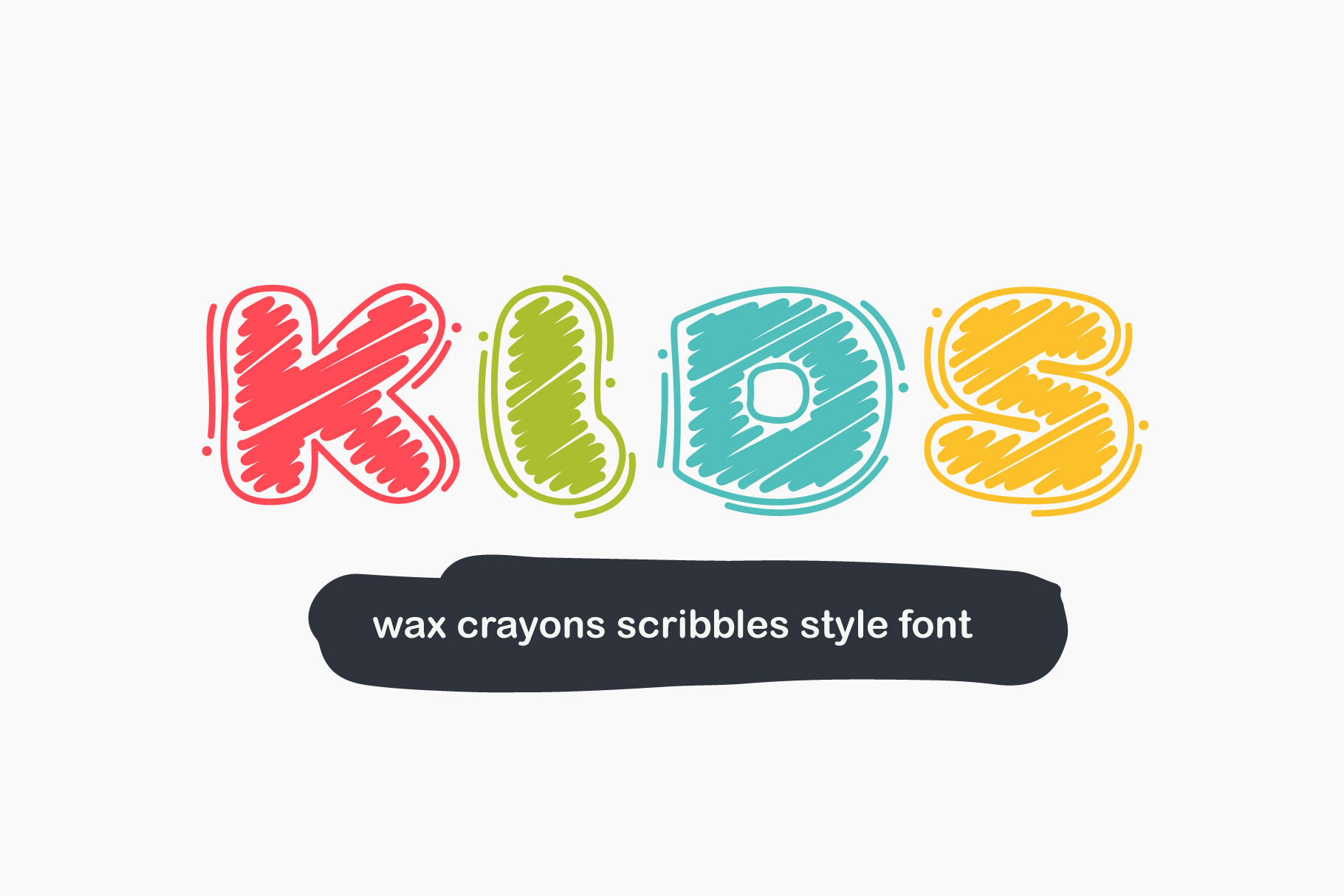
KidsCrayons Colored font
Kids Crayons is a modern display font in childish wax crayons scribbles style. Each uppercase character have a unique scribble pattern. Bright colorful font for cute kids identity, funny craft package, vibrant poster, etc.
- Colored and regular style
- Uppercase only (lowercase glyphs are same but different colors in colored style)